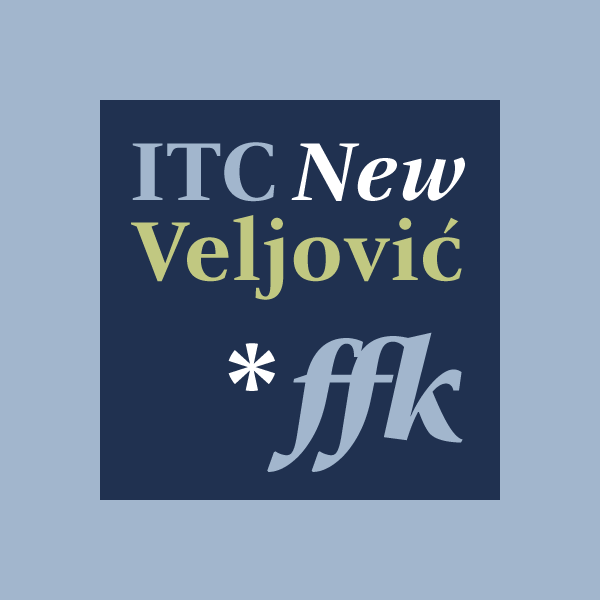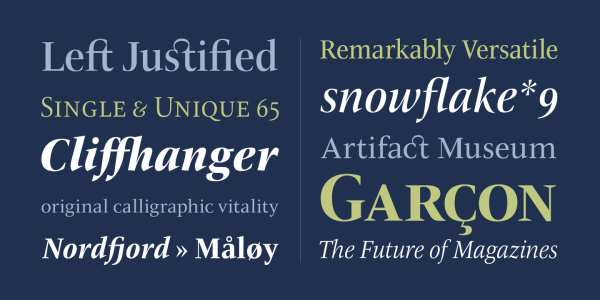
ITC New Veljovic Pro font family, an elegant but sturdy serif typeface with lots of typographic features.
Thirty years after its first publication, the Serbian calligrapher and type designer Jovica Veljović has developed the ITC New Veljovic Pro font family, which is a completely revised version based on his first typeface design, originally created in 1984. He used all his experience, which he acquired over the past decades in order to develop this new version with improved proportions and a more harmonious presence. In addition, he shortened the serifs a little, while the letters became slightly more condensed. The double-story “g” with a completely closed loop as well as the more open forms of the “c” and “e” are some of the new typographic features.
The ITC New Veljovic font family is well suited for any kind of contemporary applications. Thanks to a well kerning, the typeface is easy to read, even in very small texts. In large-headings you can see the crystal-clear shapes of the ITC New Veljovic Pro font family.